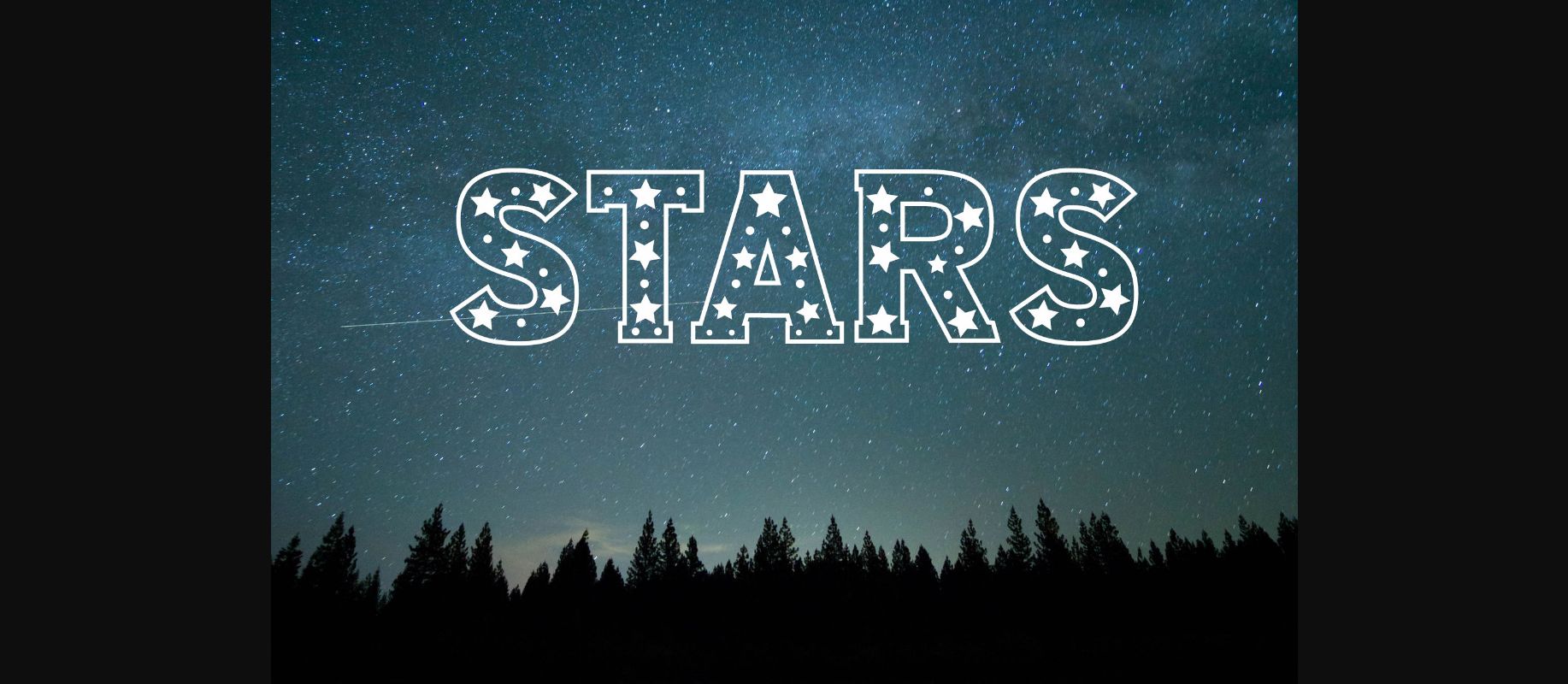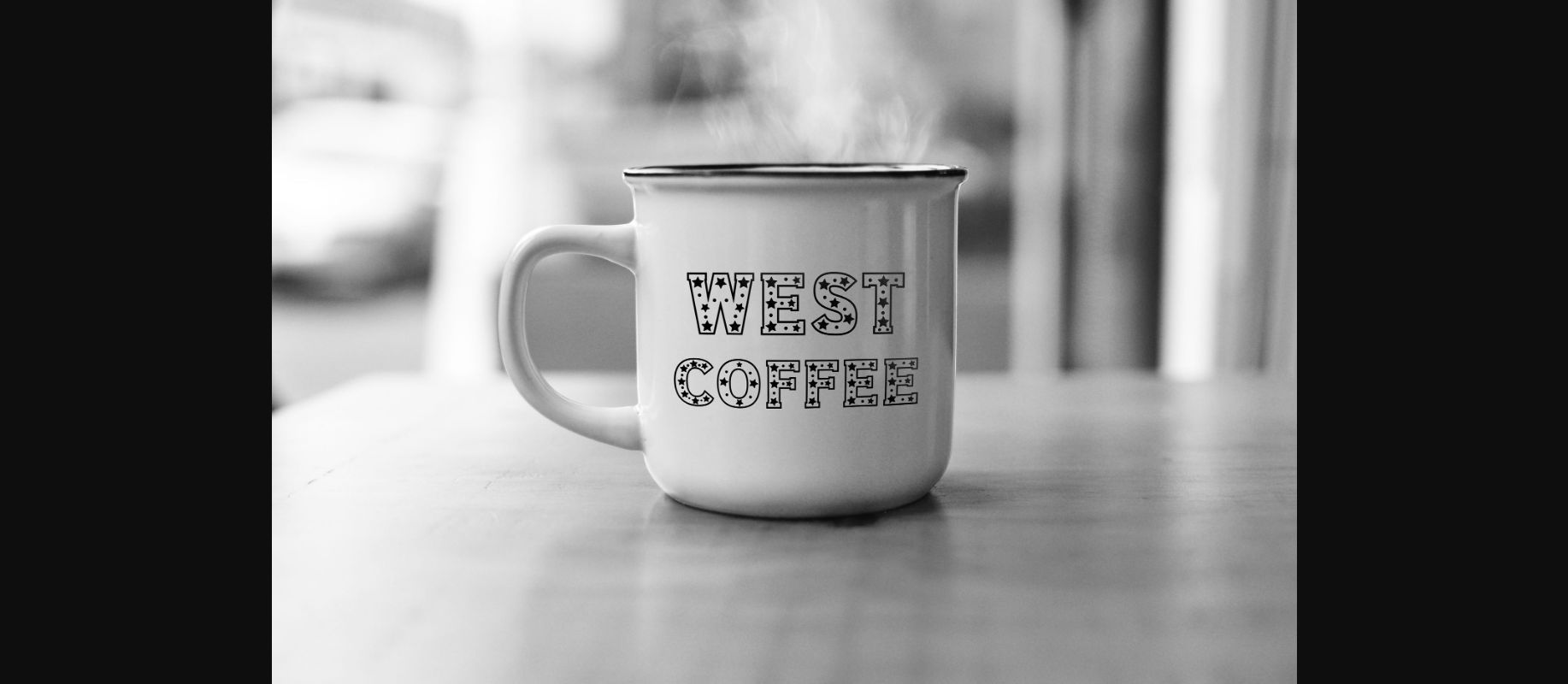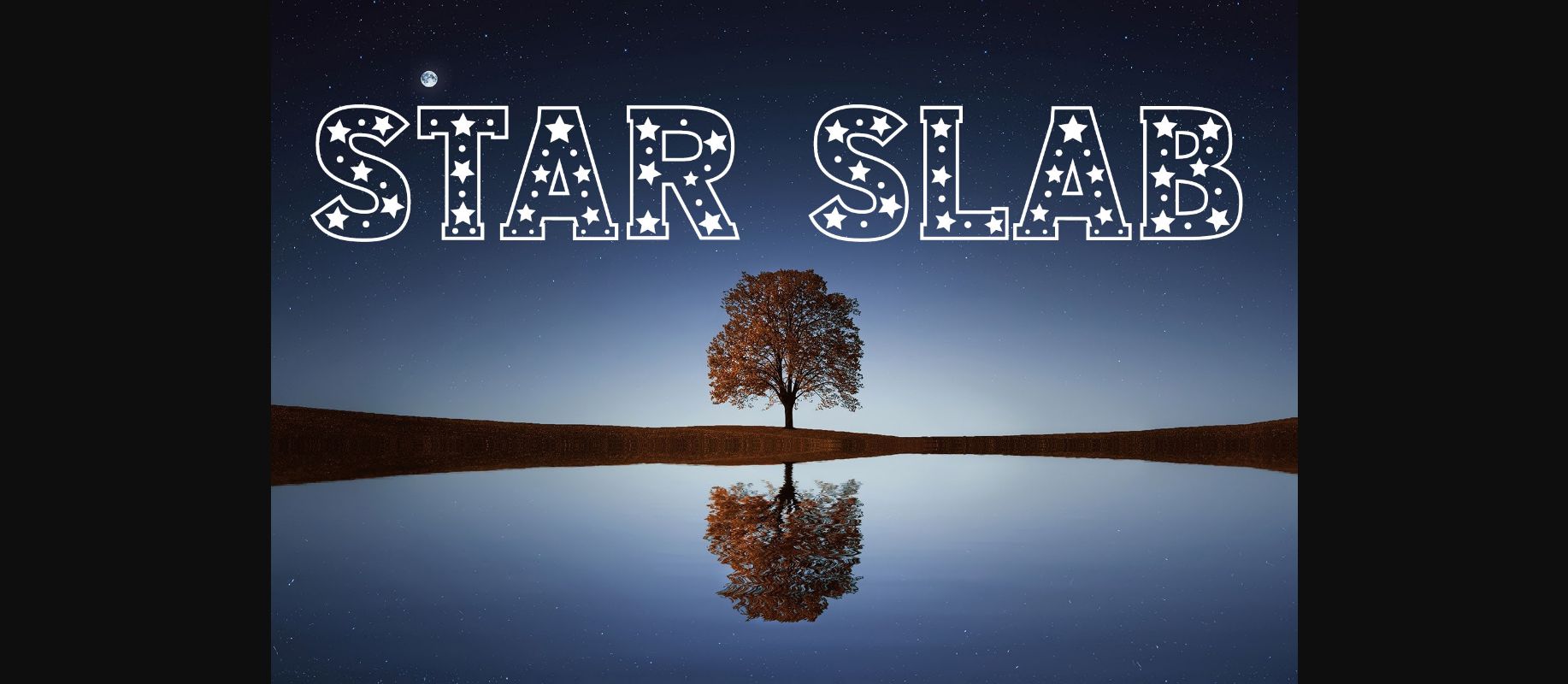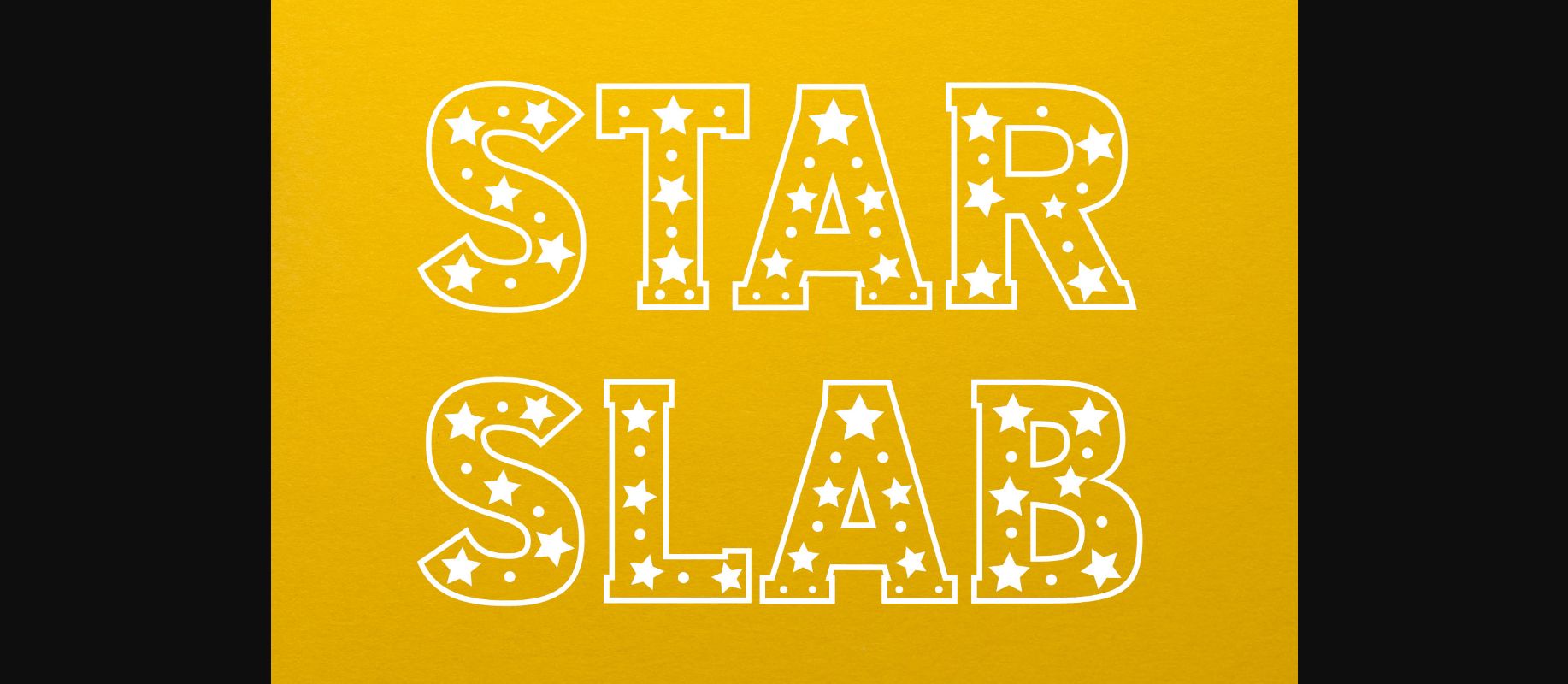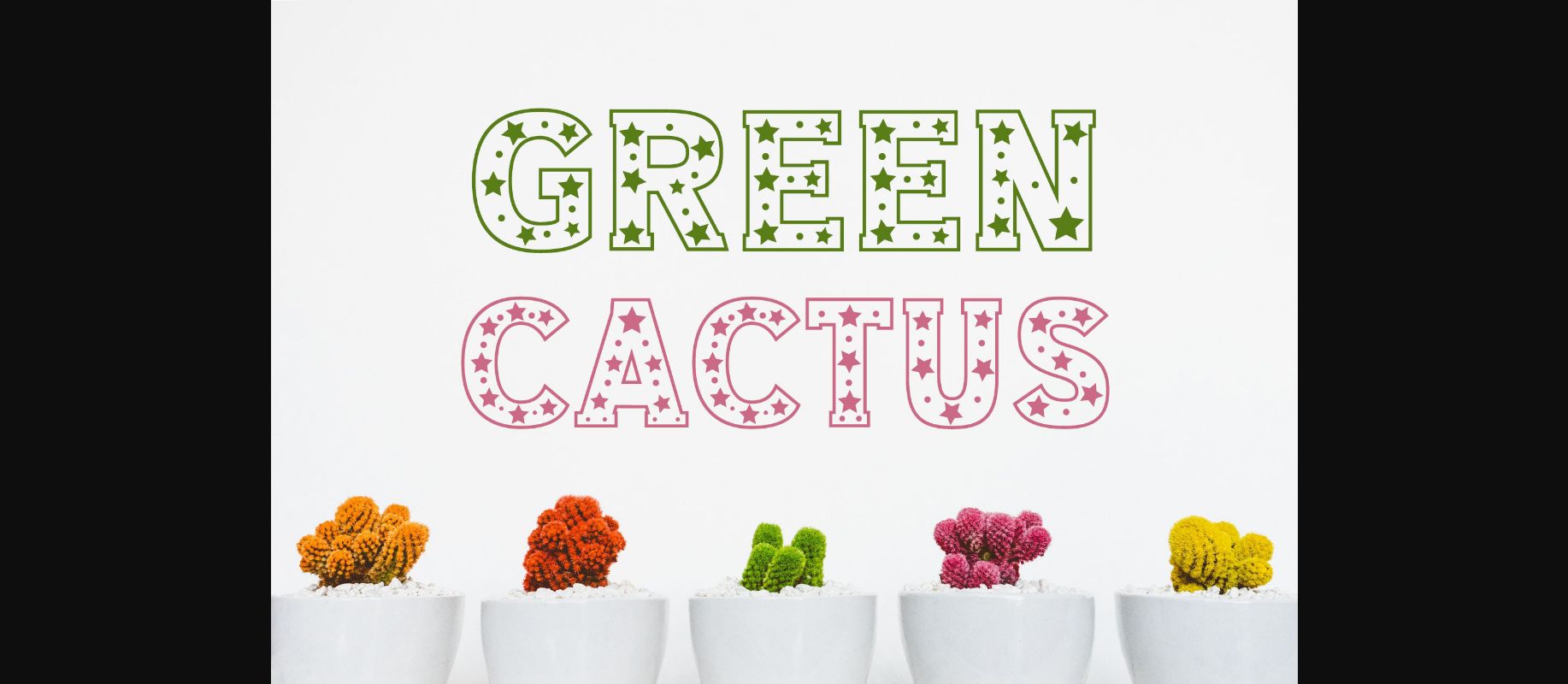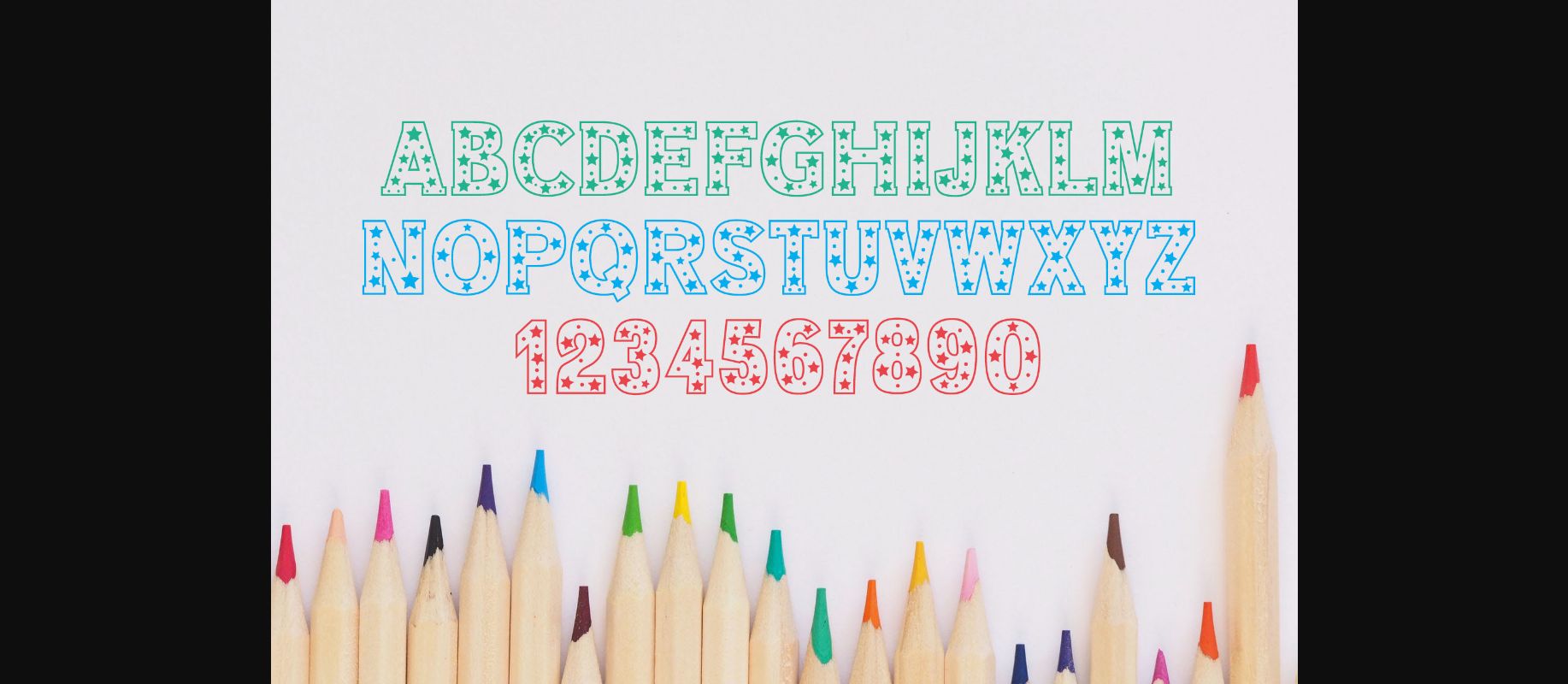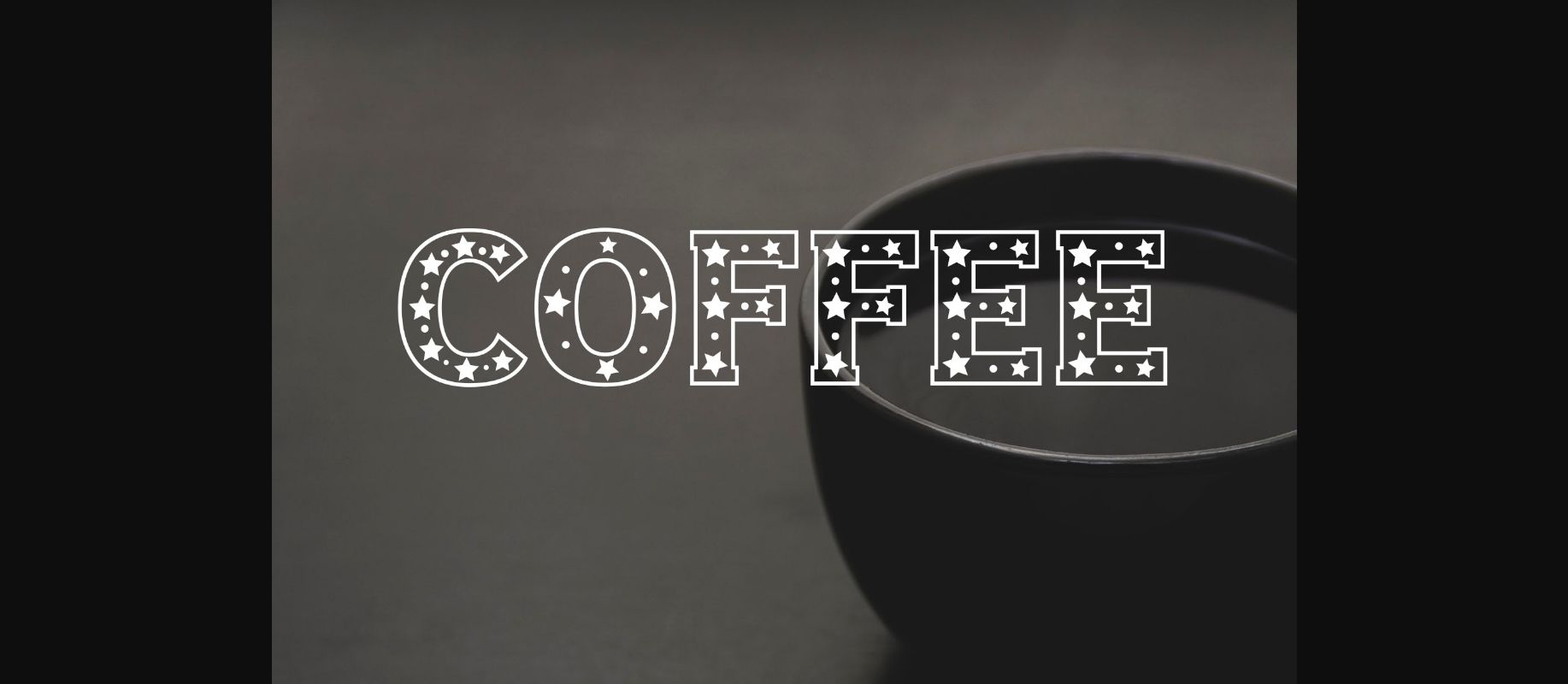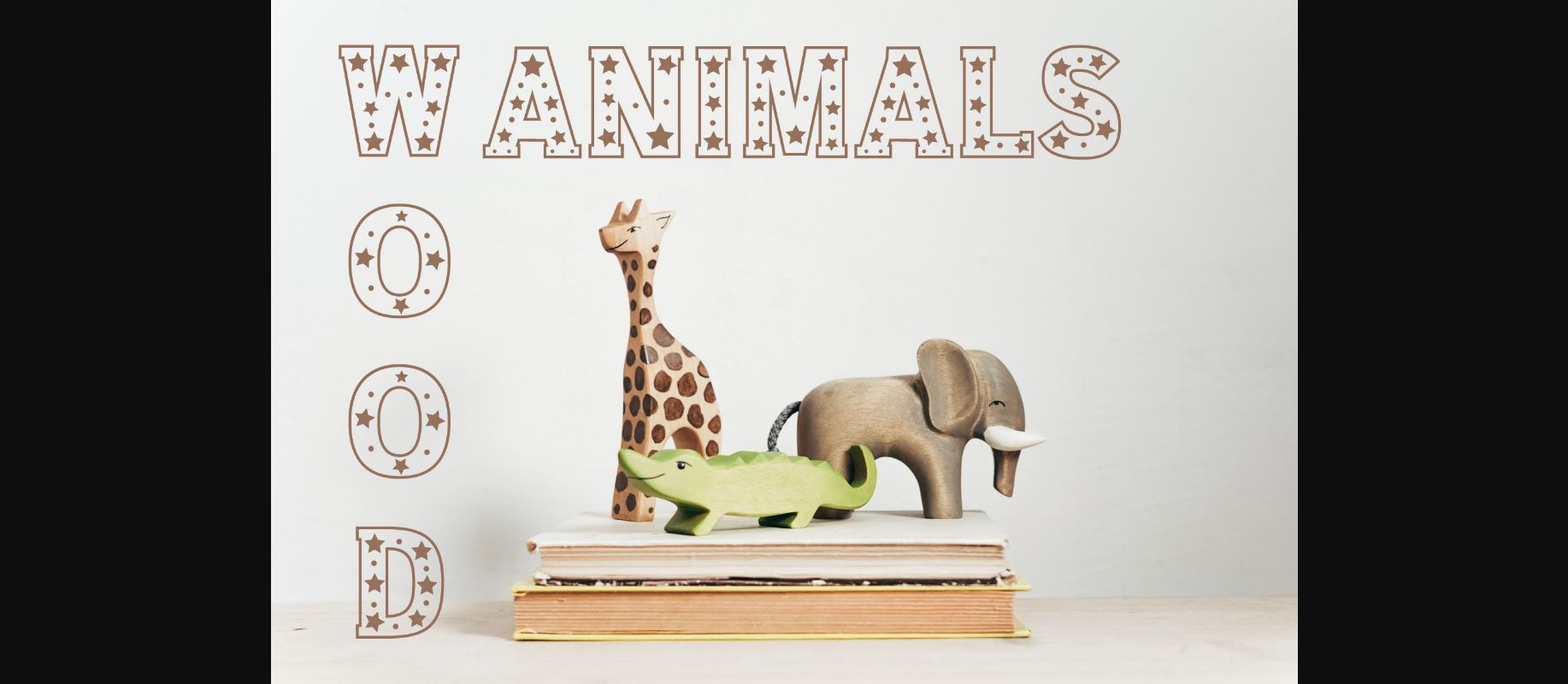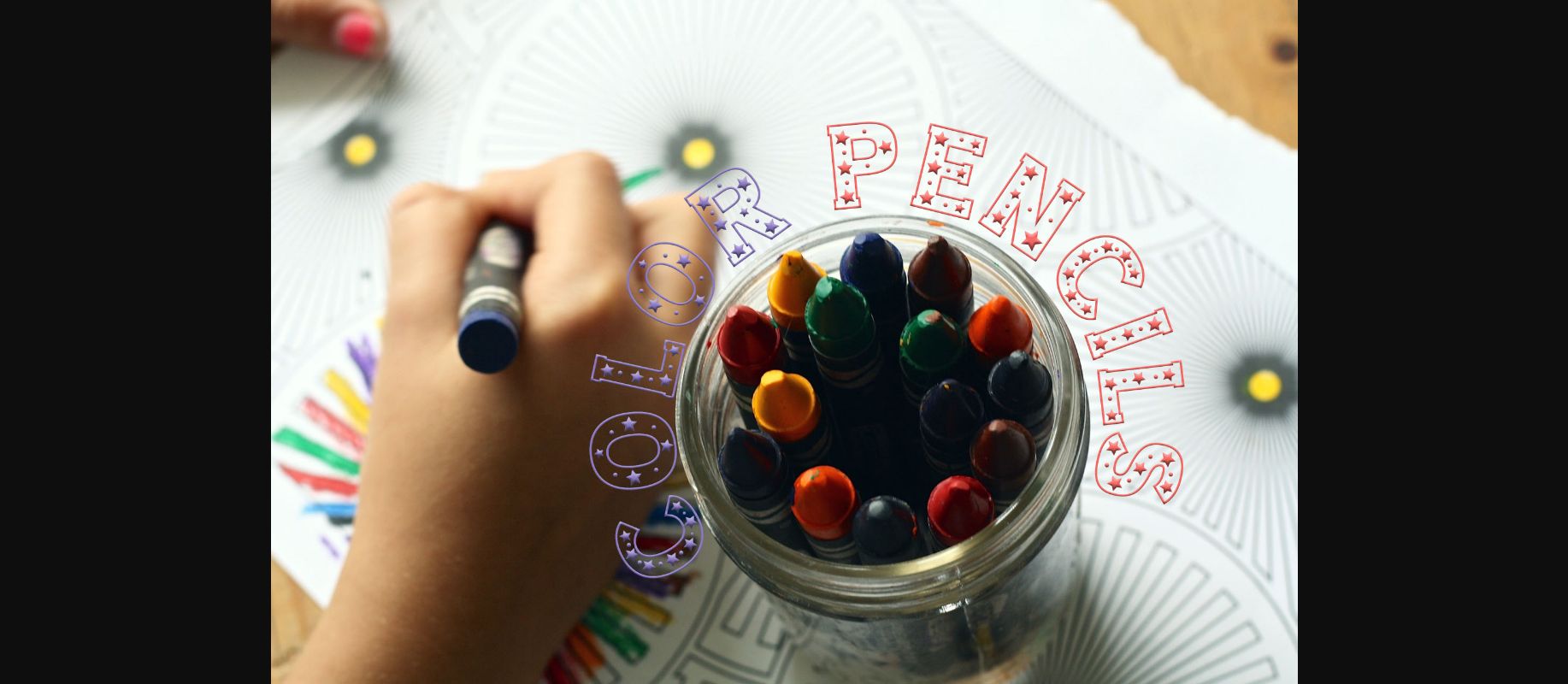
Star Slab Font
About Star Slab Font
Star Slab is a bold and thick lettered decorative font, featuring a sea of stars as ornaments. Add it to your favorite designs and make them shine bright!